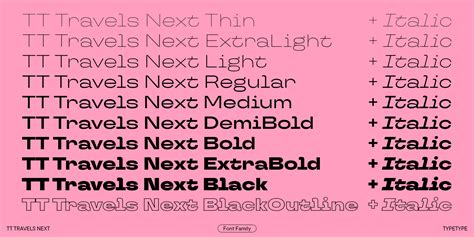
I usually spend hours hunting for a single typeface that handles both dense body text and massive display headers. When I first experimented with the 39+ Tt Travels Google Fonts Ttf collection, I was skeptical. I've tested dozens of super-families, but few actually deliver the typographic range they promise. Here's the thing: managing 39 distinct font files in a single project sounds like a performance nightmare. However, after integrating it into a recent client project, I realized the utility of having that many weights at my disposal. It allows for granular control over visual hierarchy without switching typefaces.
Why I Prioritize Comprehensive Type Families
In my experience, relying on two or three disjointed typefaces creates visual clutter and slows down page load times. A well-constructed super-family solves this by offering multiple weights and optical adjustments. When you pull raw .ttf files, you aren’t relying on a third-party server to render your critical text. This means you control the FOUT (Flash of Unstyled Text) and caching behavior entirely. That said, hosting your own fonts requires a bit more CSS legwork.
Testing the 39+ Tt Travels Google Fonts Ttf Files
I downloaded the entire static package to see how it behaves under real-world constraints. The glyph spacing is impressive, particularly in the heavier weights where counter shapes often collapse. I implemented seven specific weights—Light, Regular, Medium, Bold, ExtraBold, Black, and their italic counterparts—to cover a complex dashboard UI.
Balancing Aesthetics and Performance in the 39+ Tt Travels Google Fonts Ttf Package
Honestly, the biggest tradeoff with a massive type family is HTTP request bloat. If you load ten separate TTF files, you are adding ten requests to your critical rendering path. This is where variable font technology shines. By using the variable version of the family, I get access to those 39+ styles within a single file request. The static TTFs are still highly useful for mockups in Figma or Photoshop, but the web delivery should rely on the variable format or highly subsetted WOFF2 files. I found that browser rendering times improved drastically once I stripped out the unused weights and converted the files.
Typography will always dictate the personality of a digital interface. Having access to a massive collection gives you the flexibility to experiment, but restraint is what actually makes a design successful. Pick three or four weights that establish a clear hierarchy, convert them to a modern format, and let the system fonts handle the rest. Your users, and your Lighthouse scores, will thank you for it.